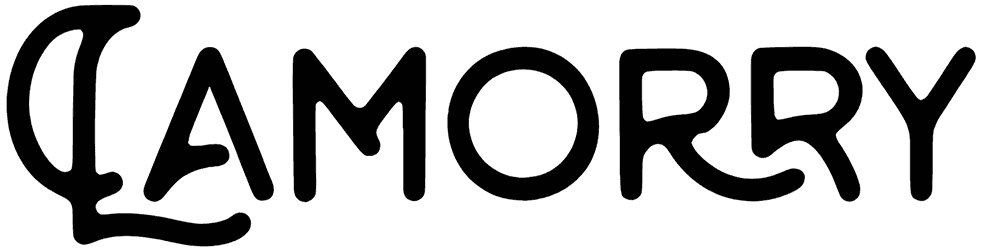
Lamorry Font
Lamorry is a monoline caps style, retro font, that is also innovative. It offers extraordinary, sans-serif characters that have a unique modern design; they give your typography an old-fashioned feel. Each character is impressive in a particular way, they are fun and geometrical.
Based on all the amazing features this Lamorry font provides, you can use it in many places, similar to book titles, CD covers, banners, shop signage, flyers, and wherever you wish to have something whimsical!